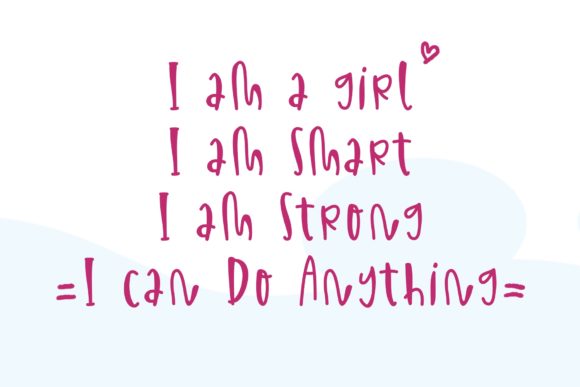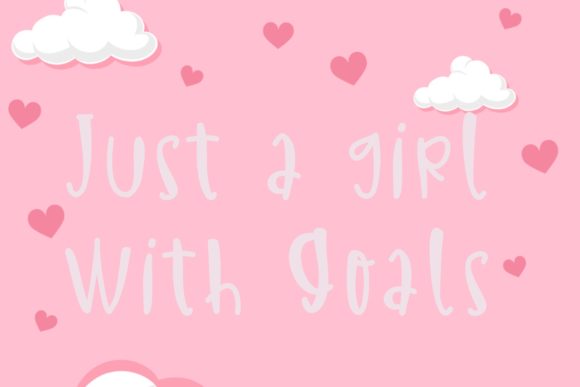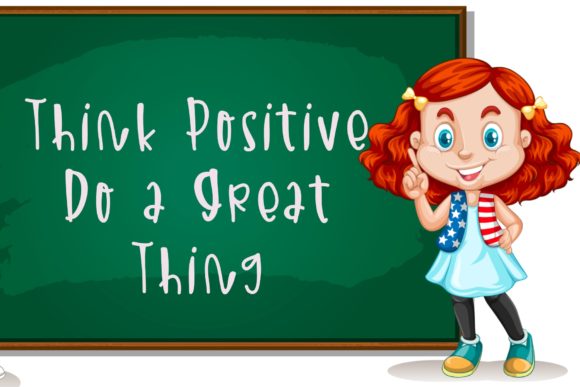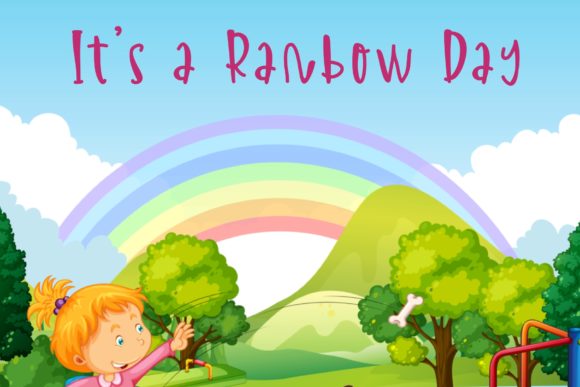
Introduction to Humble Girl Font
Humble Girl is a fun, and friendly serif font.
Whether itโs used for Halloween-themed projects or back-to-school crafts, it will add a sassy touch to any design .
Key Features of Humble Girl Font